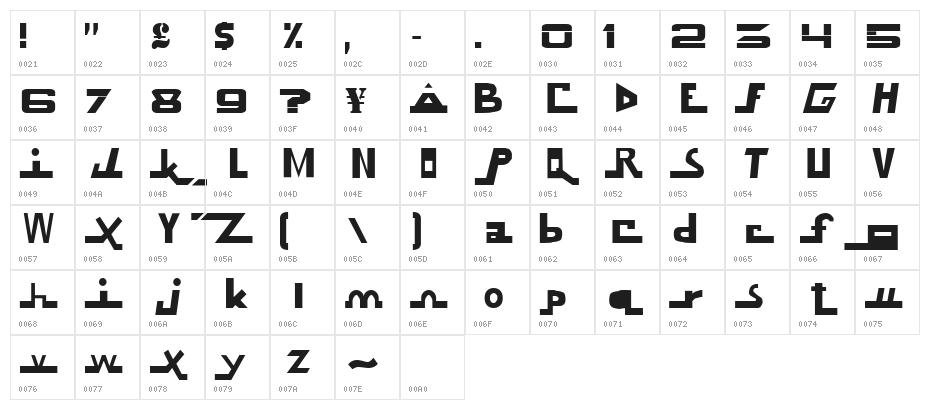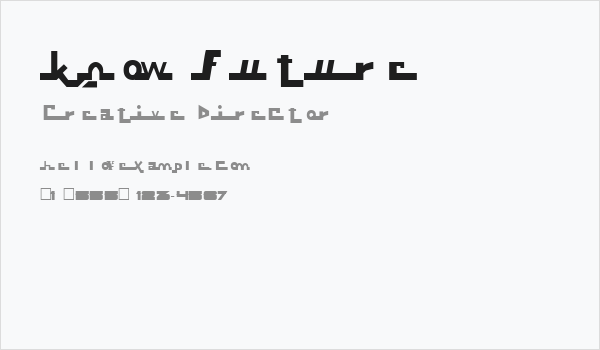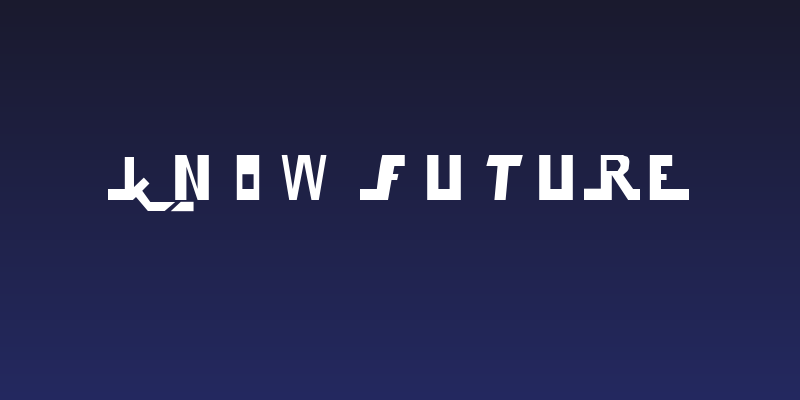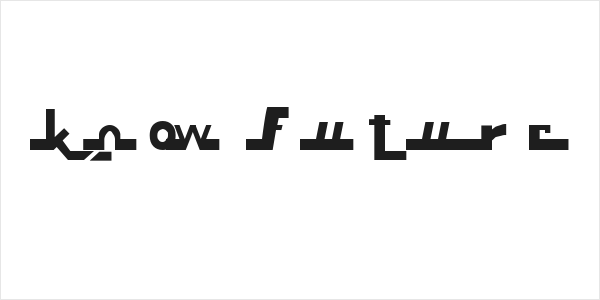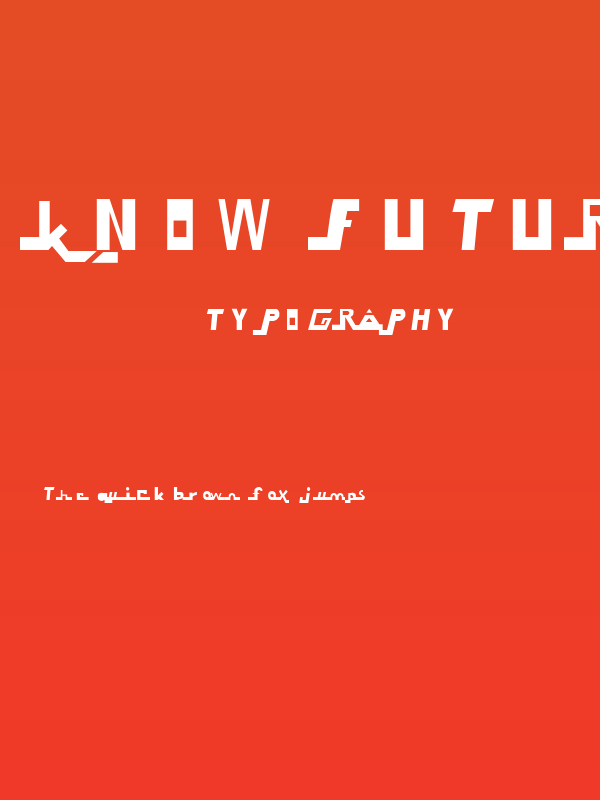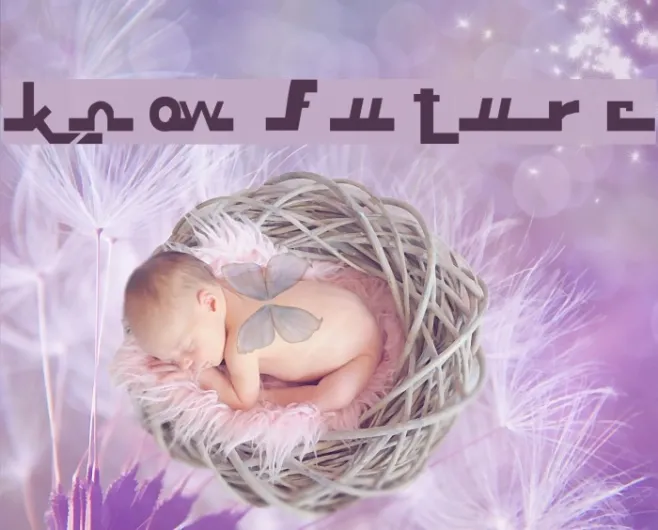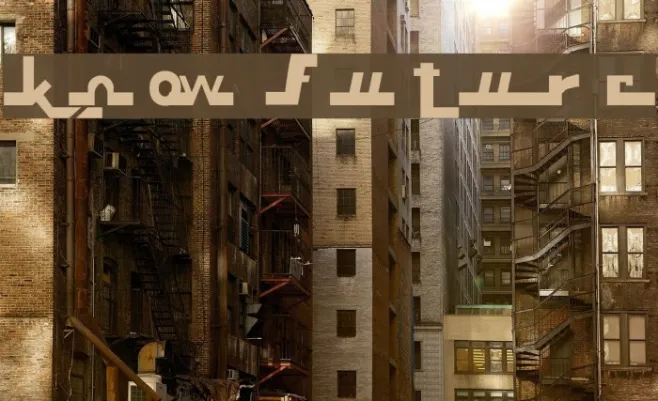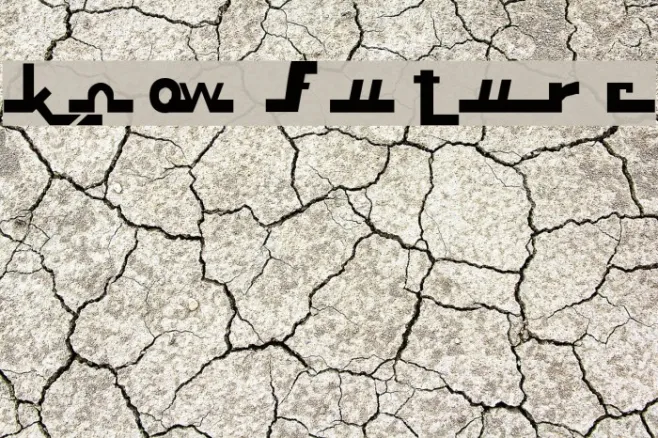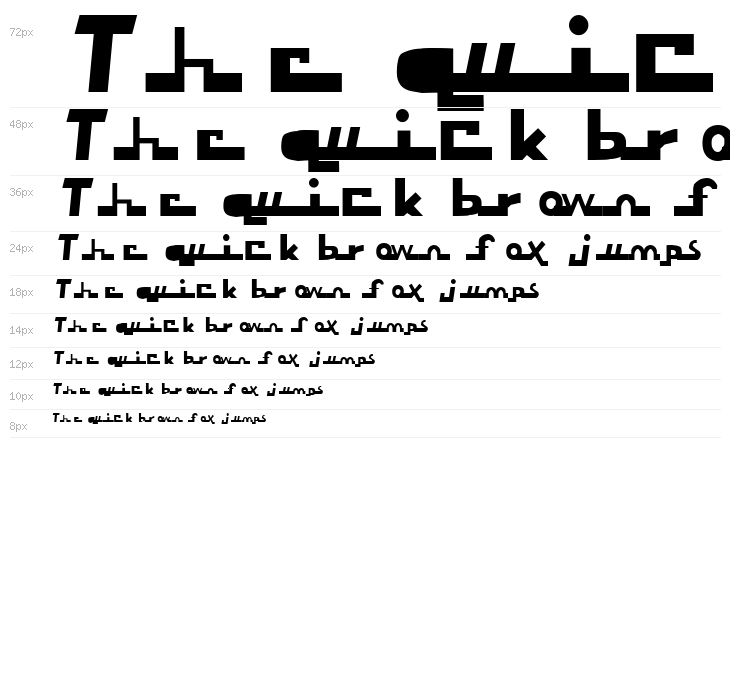
Know Future Font
Know Future Description
This font features a futuristic and geometric design, characterized by bold and angular letterforms. The uppercase letters exhibit a strong presence with sharp edges and unique cutouts, creating a sense of movement and modernity. The lowercase letters maintain the geometric theme with consistent angular shapes, while the numerals are bold and uniform, enhancing readability. Special characters are designed to match the overall aesthetic, adding to the font's cohesive look. The font's distinct style makes it suitable for projects that require a modern and edgy appearance.
| Proposed Projects | Ideal for sci-fi themed designs, technology branding, video game titles, and modern posters. |